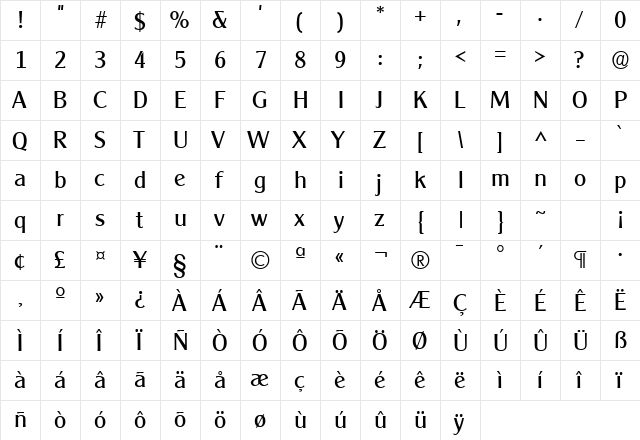
Clarity Gothic SF Regular
Design Context for Clarity Gothic SF Typeface
Clarity Gothic SF takes a clean, functional approach — its unadorned letterforms prioritise legibility and work reliably across screen and print environments.
Font Pairing: Works well alongside a characterful serif or display font that can carry the expressive load while Clarity Gothic SF handles the functional copy.
Pro Tip: Use Clarity Gothic SF for UI labels, navigation, and short-form body copy where clean legibility is the priority.